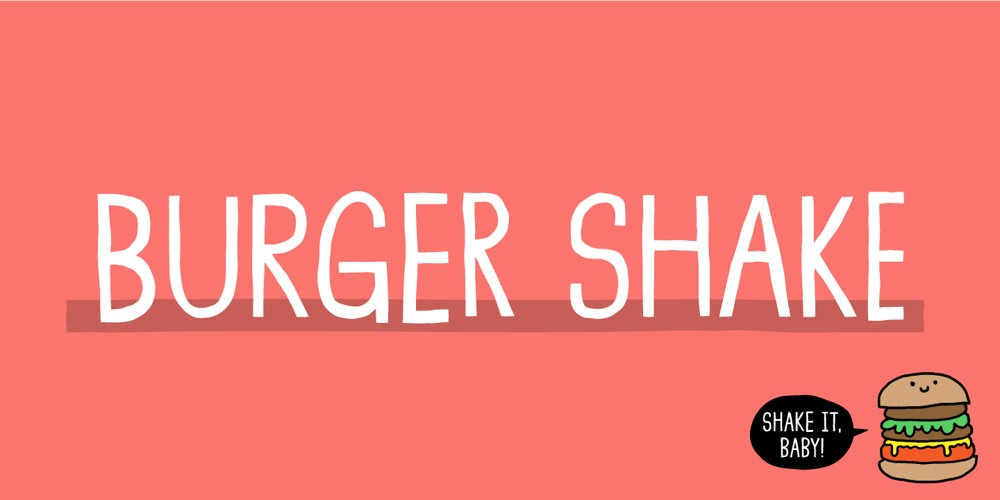
Burger Shake
Burger Shake font
Burger Shake Font Family was designed by Jakob Fischer and published by Bogstav. Burger Shake contains 2 styles and family package options. A burger and a shake – the classic companions! Mix those two and you get the Burger Shake – it may not sound very delicious, but the thought of mixing two nice things is great…or something! :)Anyway, the Burger Shake font is about having fun in a legible way. The letters are slightly uneven and rough here and there, and has this nice handmade organic feeling. I’ve added 5 slightly different versions of each letter, and they automatically cycle as you type!